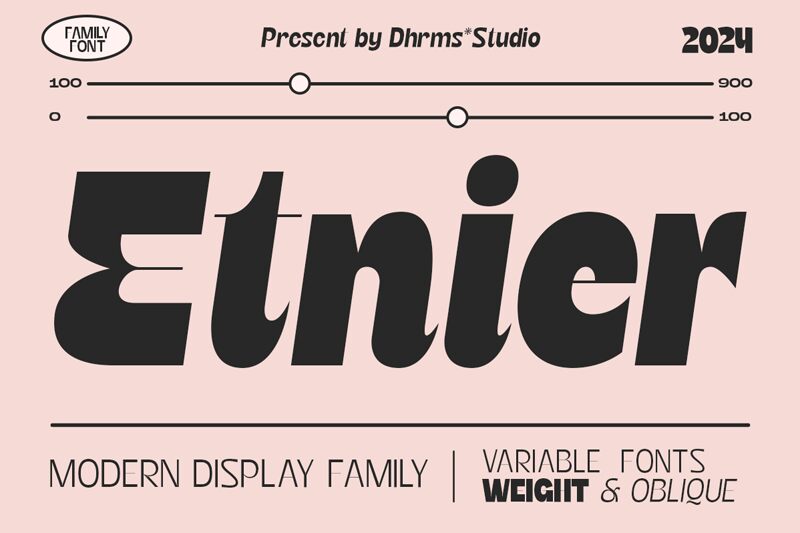
Etnier Oblique, a captivating font from the Etnier family, designed by Dharmas Studio, exudes a bold and condensed aesthetic. Its striking letterforms command attention, with sharp edges and clean lines that convey a sense of strength and determination. The oblique slant adds a dynamic quality, lending the font an air of modernity and dynamism.
This versatile font lends itself well to a variety of design applications, from bold headlines and impactful branding to sleek user interfaces. Its condensed nature makes it an excellent choice for space-constrained layouts, while the bold weight ensures optimal legibility across mediums. Etnier Oblique's versatility and distinctive character make it a compelling option for designers seeking to create bold, attention-grabbing designs that leave a lasting impression.